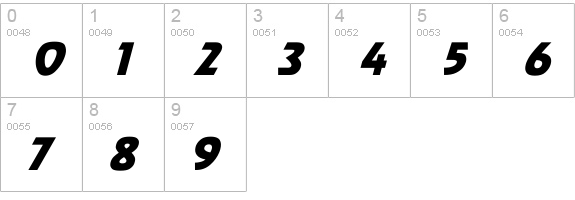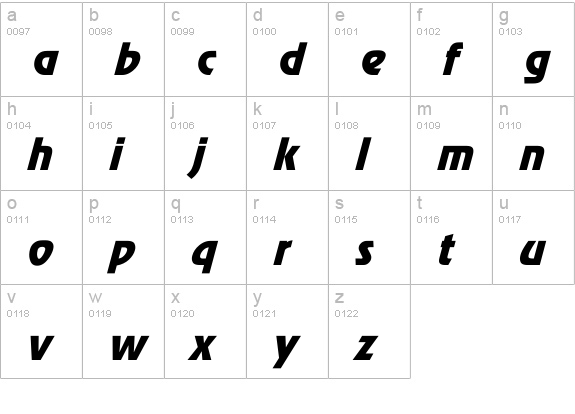
Revue Italic Font Details
Revue Italic is a distinctive, italic variant in the Revue typeface family \xE2\x80\x94 well suited to design and typography projects.
Introducing Revue Italic, a stunning font that effortlessly combines elegance with modern sophistication. This exquisite typeface is the perfect choice for those seeking to add a touch of refinement to their designs. With its sleek and flowing lines, Revue Italic exudes a sense of class and style, making it an ideal option for luxury brands, fashion magazines, and upscale invitations. With its unique italic style, Revue Italic stands out from the crowd, adding a touch of flair and individuality to any project. Whether used for headlines, body text, or even logos, this font is sure to captivate and engage your audience. Its graceful curves and delicate letterforms create a sense of movement and rhythm, enhancing the overall visual appeal of any design. One of the most remarkable aspects of Revue Italic is that it is freely available to download at FontsMarket.com. This means that you can effortlessly access this exquisite typeface and incorporate it into your projects without any cost or restrictions. This generous offer allows designers, creators, and enthusiasts alike to enjoy the beauty and versatility of Revue Italic without any limitations. Revue Italic is not just visually stunning; it also offers a high level of legibility and readability, making it suitable for a wide range of applications. Its balanced letterforms and clear spacing ensure that every word is easily readable, even at smaller sizes. This makes Revue Italic a versatile font that can adapt to various design needs, from print materials to digital platforms. In addition to its aesthetic appeal and functionality, Revue Italic also includes a comprehensive character set, including uppercase and lowercase letters, numbers, punctuation marks, and special characters. This allows you to fully express your creativity and communicate your message effectively, no matter the project or language. So, why settle for ordinary fonts when you can elevate your designs with Revue Italic? Download this exquisite typeface for free at FontsMarket.com and unlock a world of elegance and beauty. With its timeless style and versatile nature, Revue Italic is sure to become your go-to font for all your design aspirations.